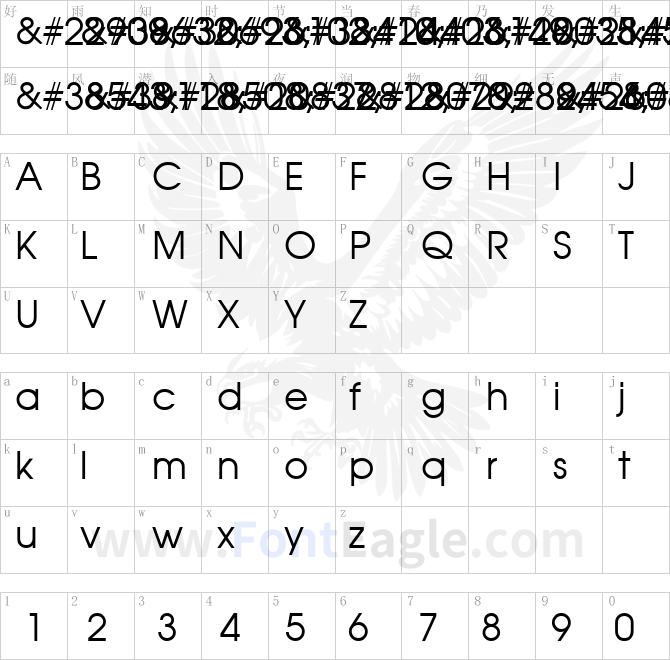
AvantGarde-Book is a great font, widely used in graphic design, single-page menu design, poster design and other fields, and is deeply loved by designers.AvantGarde-Book download.